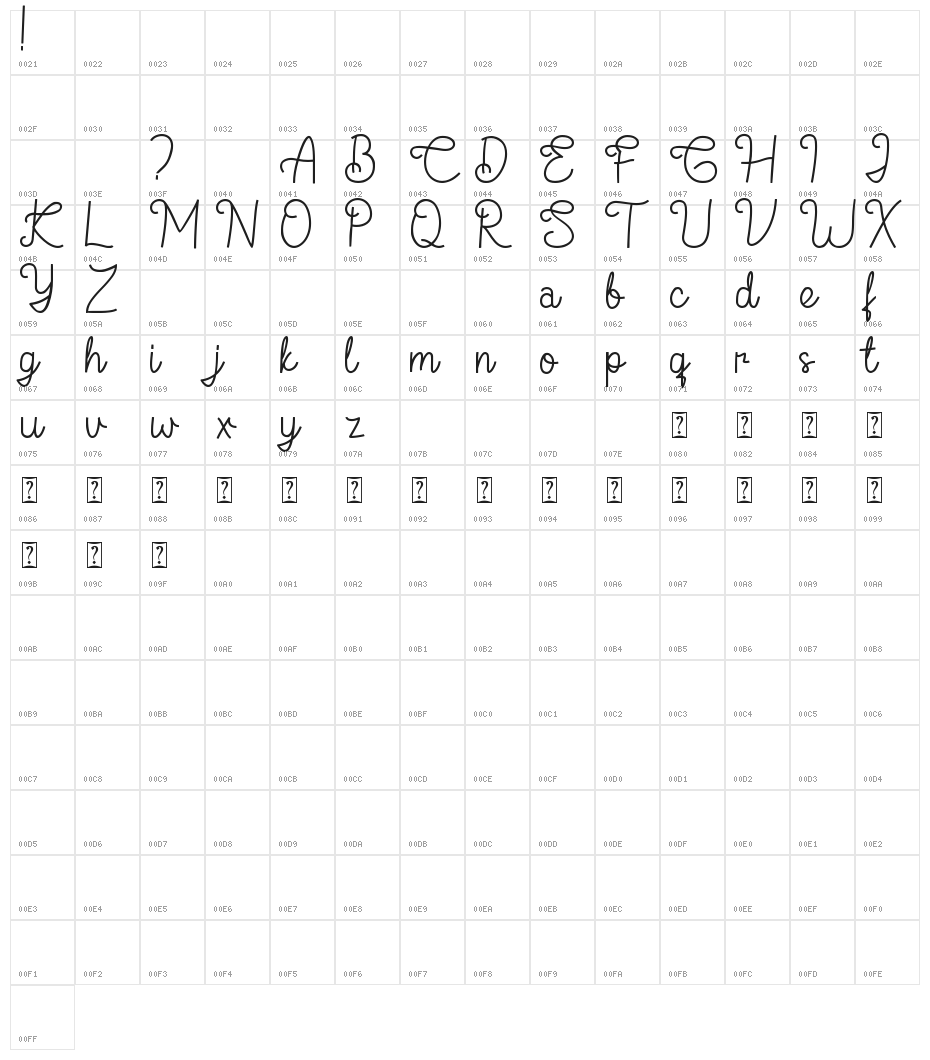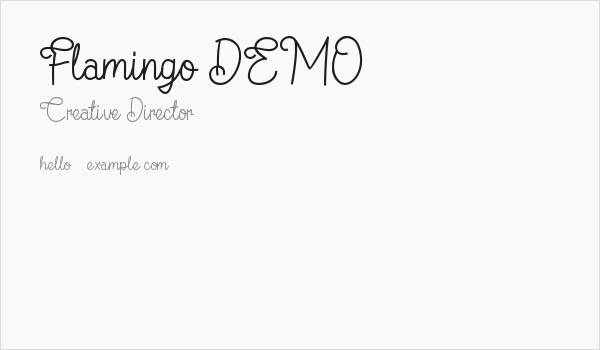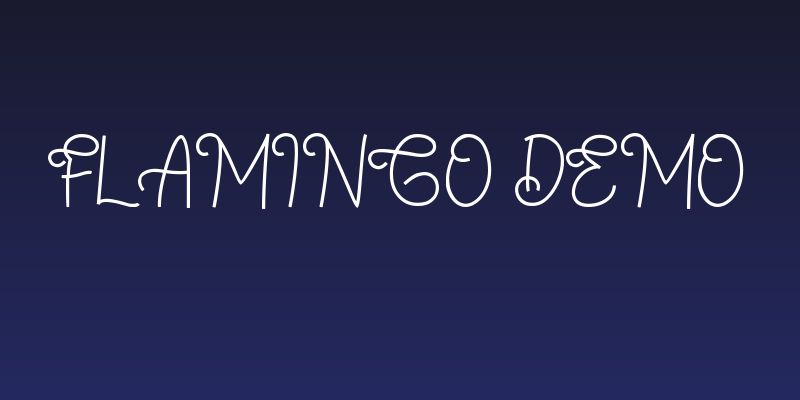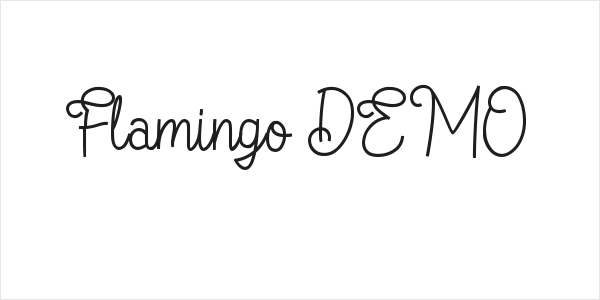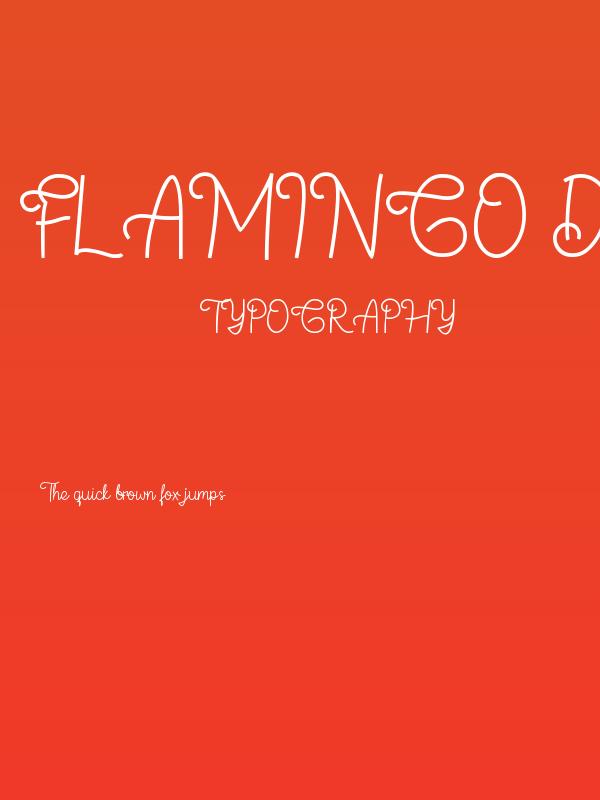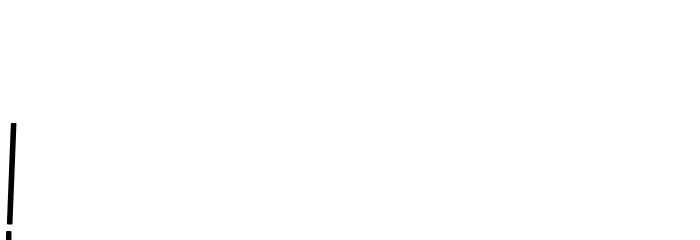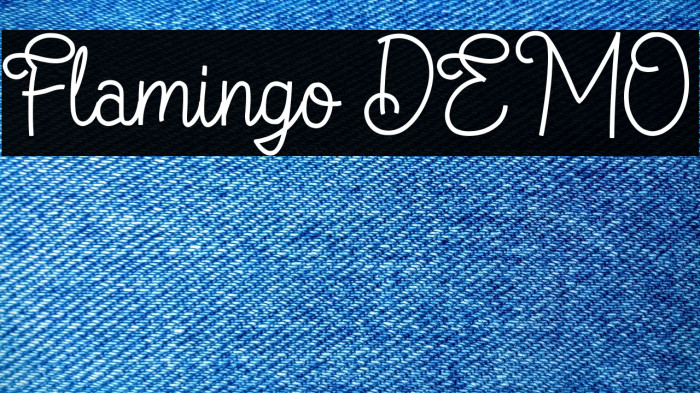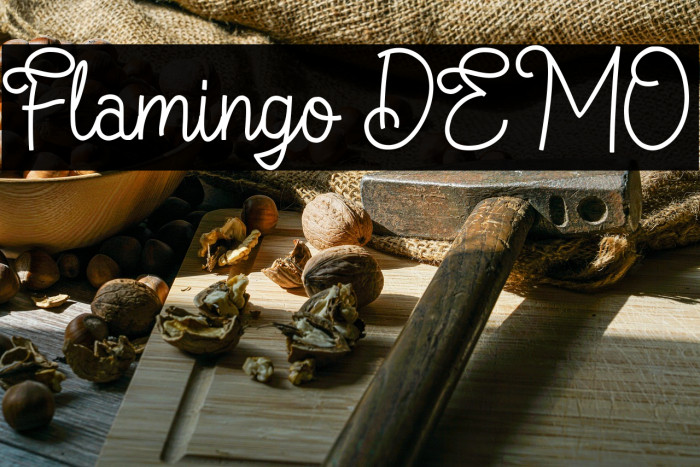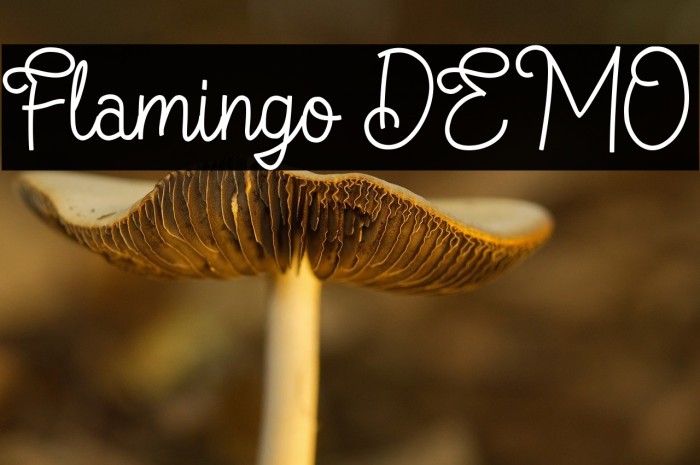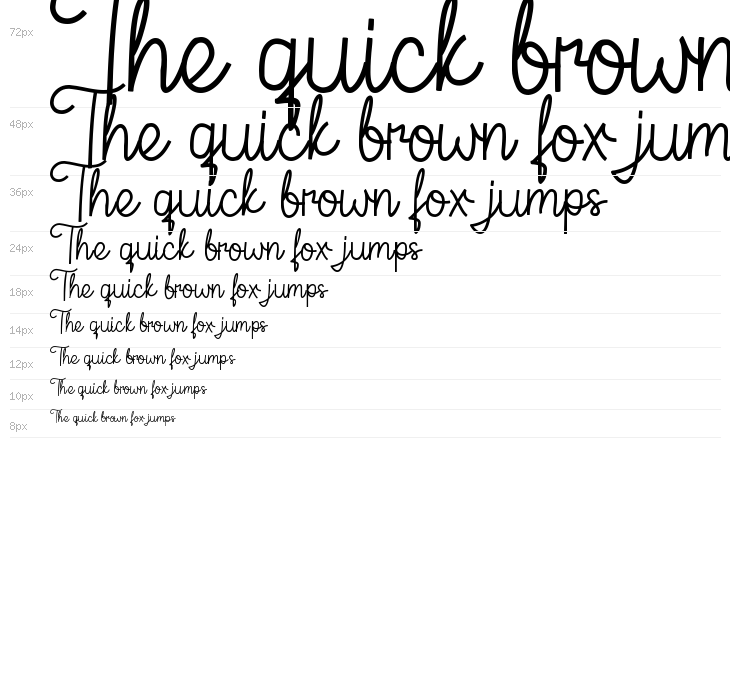
Flamingo DEMO Font
Flamingo DEMO Description
This font features a playful and whimsical script style, characterized by its flowing, interconnected letters. The uppercase letters exhibit a unique blend of curves and loops, giving them an elegant yet informal appearance. The lowercase letters maintain a consistent flow, with some characters extending below the baseline, adding to the font's dynamic nature. The overall design is light and airy, with a sense of movement and fluidity. This font is ideal for projects that require a touch of creativity and personality, such as invitations, greeting cards, or branding materials.
| Proposed Projects | Ideal for invitations, greeting cards, branding materials, and creative projects. |